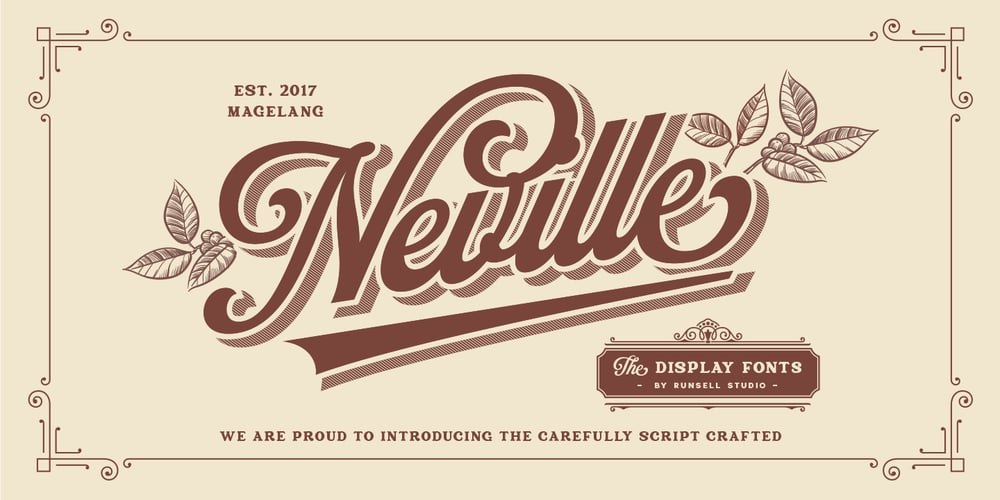
Neville Font Family was designed by Fitriyawan and published by Runsell Type. Neville contains 2 styles and family package options. Neville inspired by beautiful lettering in old label. It is carefully made with perfectly horizontal vertical bezier handles. Every single letter contains beautiful alternates characters (ss01 – ss13) and feature ligatures. Neville fits well in some designs such as the logotype, packaging, branding, quotes, business cards and more custom designs. The features uppercase, lowercase, numeral, punctuation & symbol, ligatures, alternates, multilingual support, PUA encoded (fully accessible without additional design software). How to get access alternate glyphs with designing software to open type fonts check this link: http: //adobe.ly/1m1fn4Y